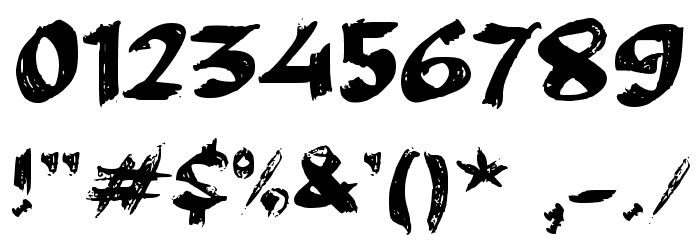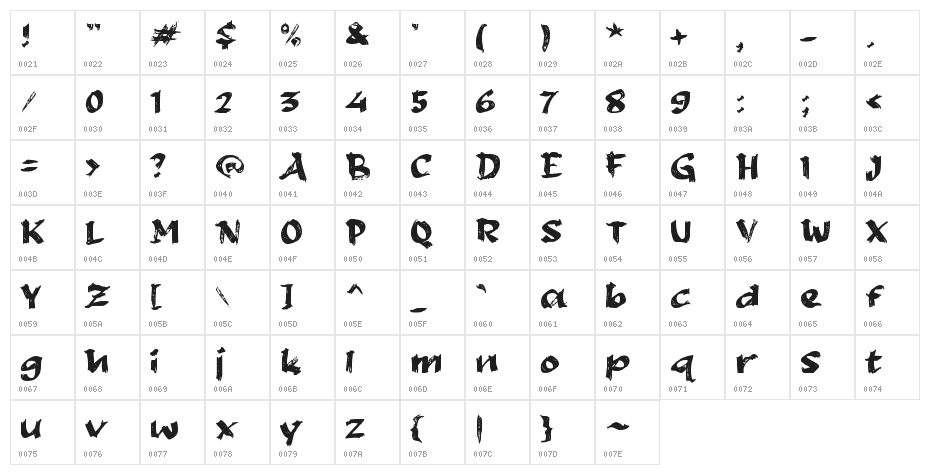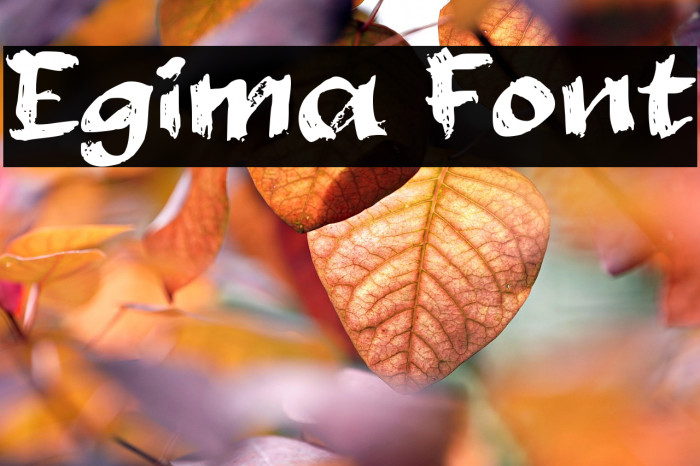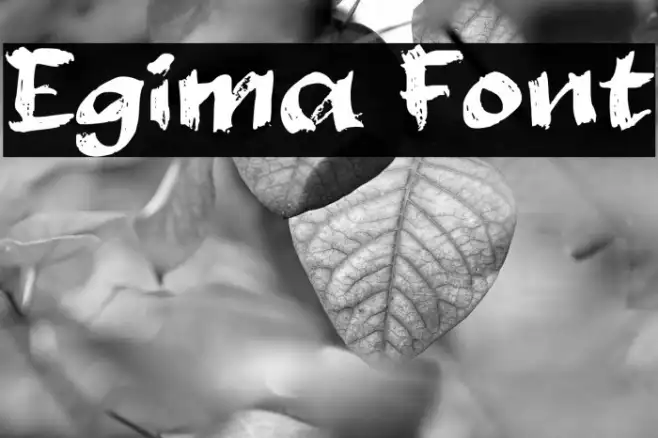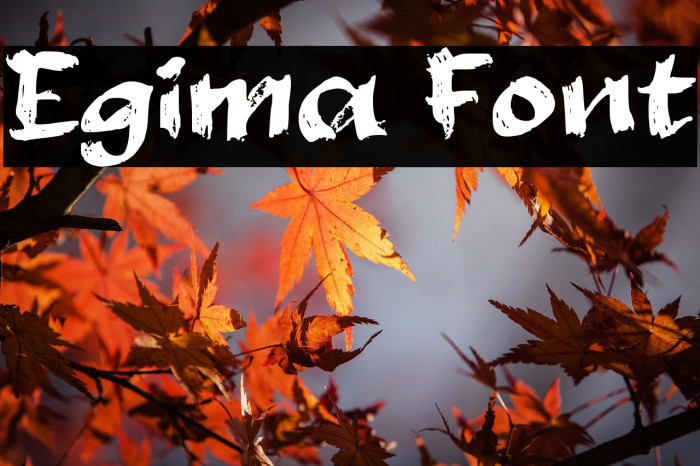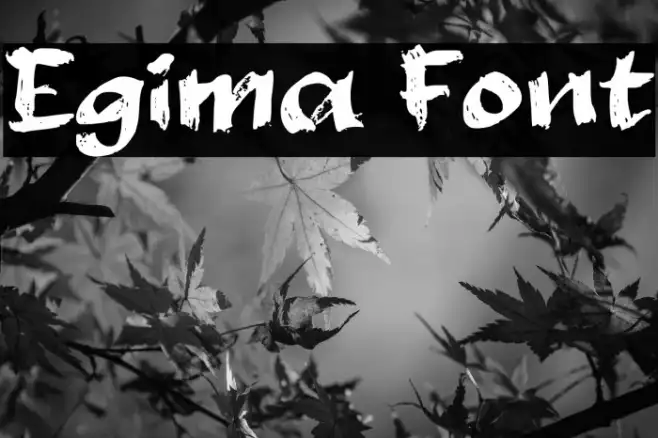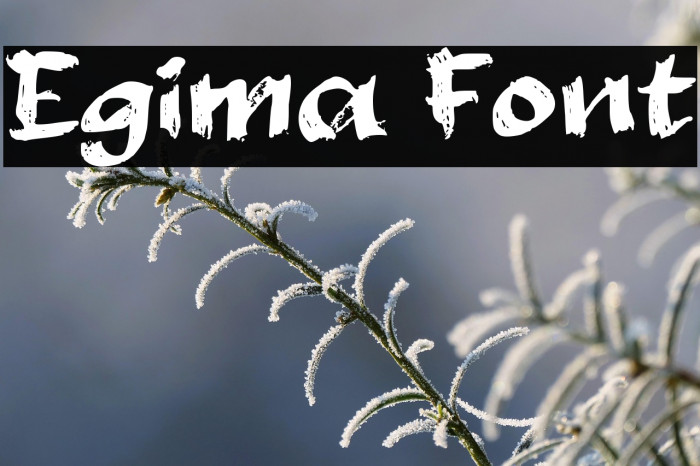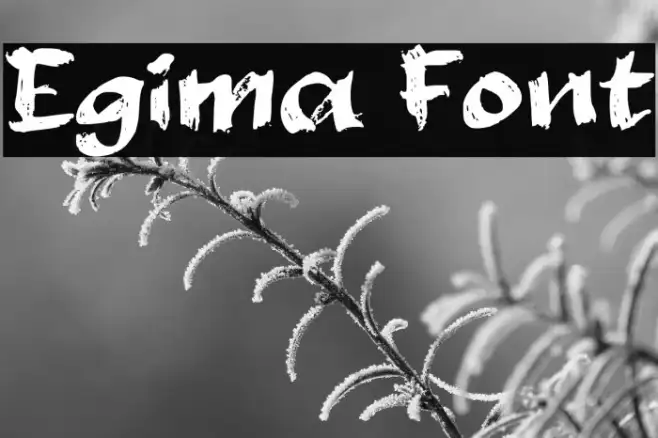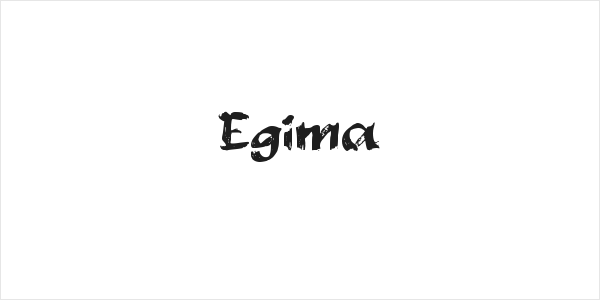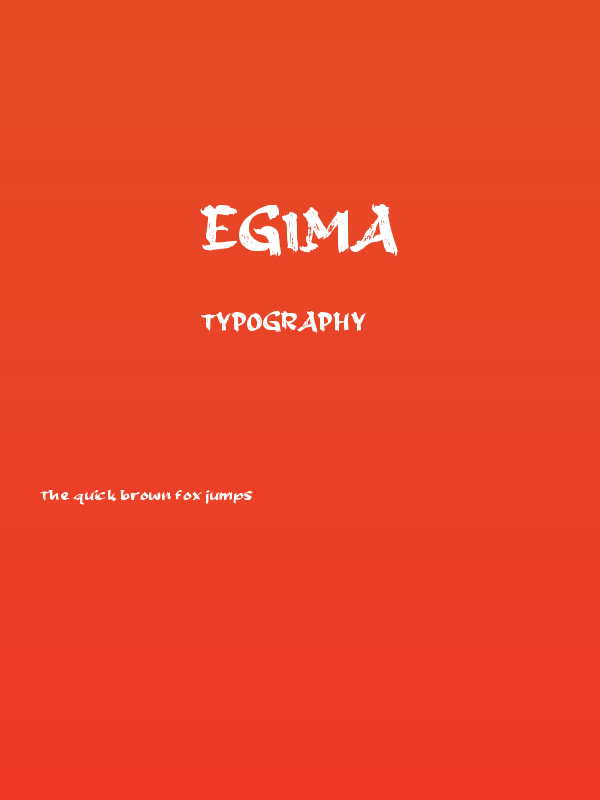
Egima Font
Egima Description
This font features a bold, expressive style with a brush-like texture that gives it a dynamic and energetic appearance. The characters are irregular and slightly distressed, adding a sense of movement and artistic flair. The uppercase and lowercase letters maintain a consistent style, with each character exhibiting unique brush strokes that vary in thickness, creating a high contrast. The numerals and special characters follow the same aesthetic, ensuring a cohesive look across all elements. This font is ideal for projects that require a bold, artistic touch, such as posters, album covers, or branding materials that aim to convey creativity and individuality.